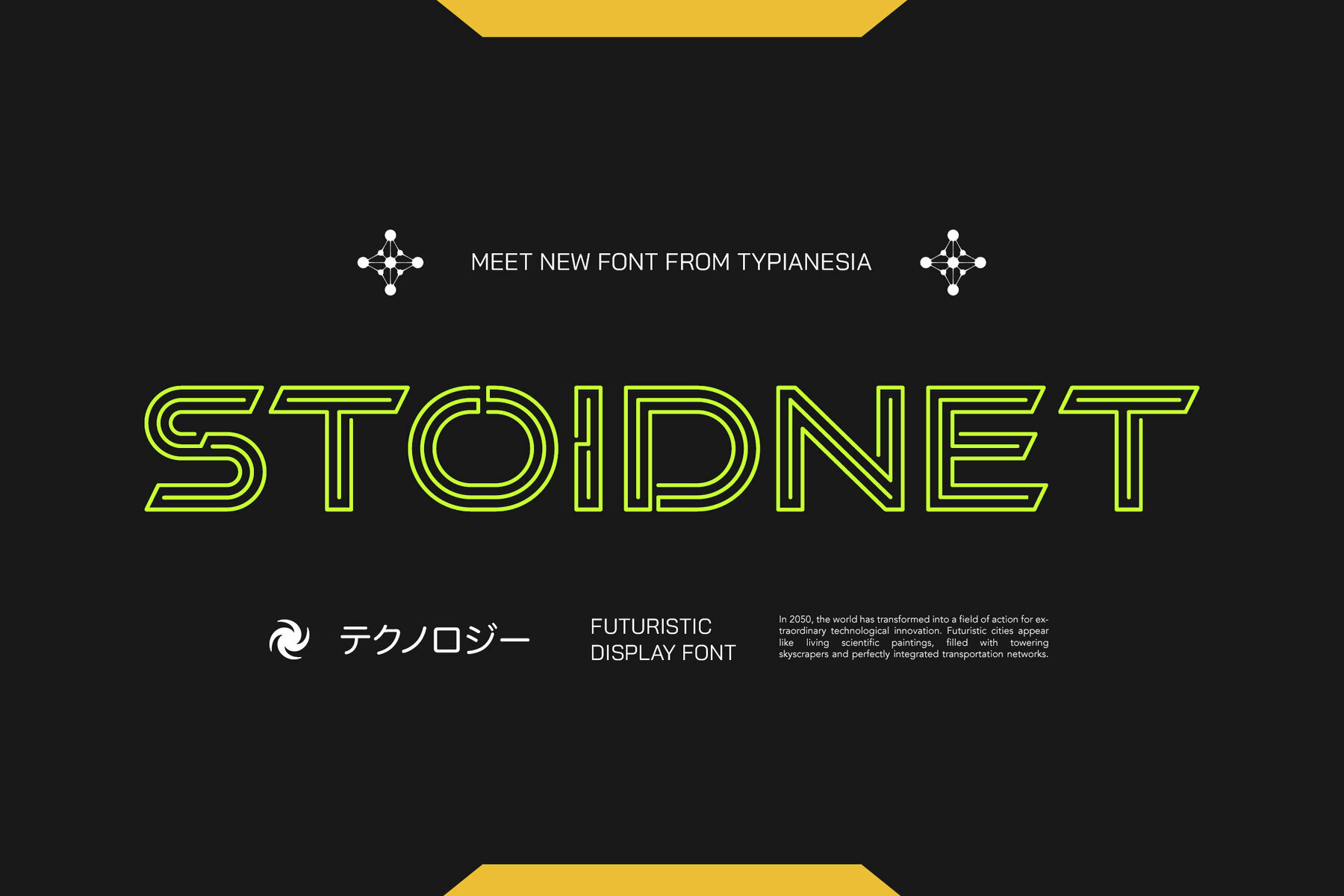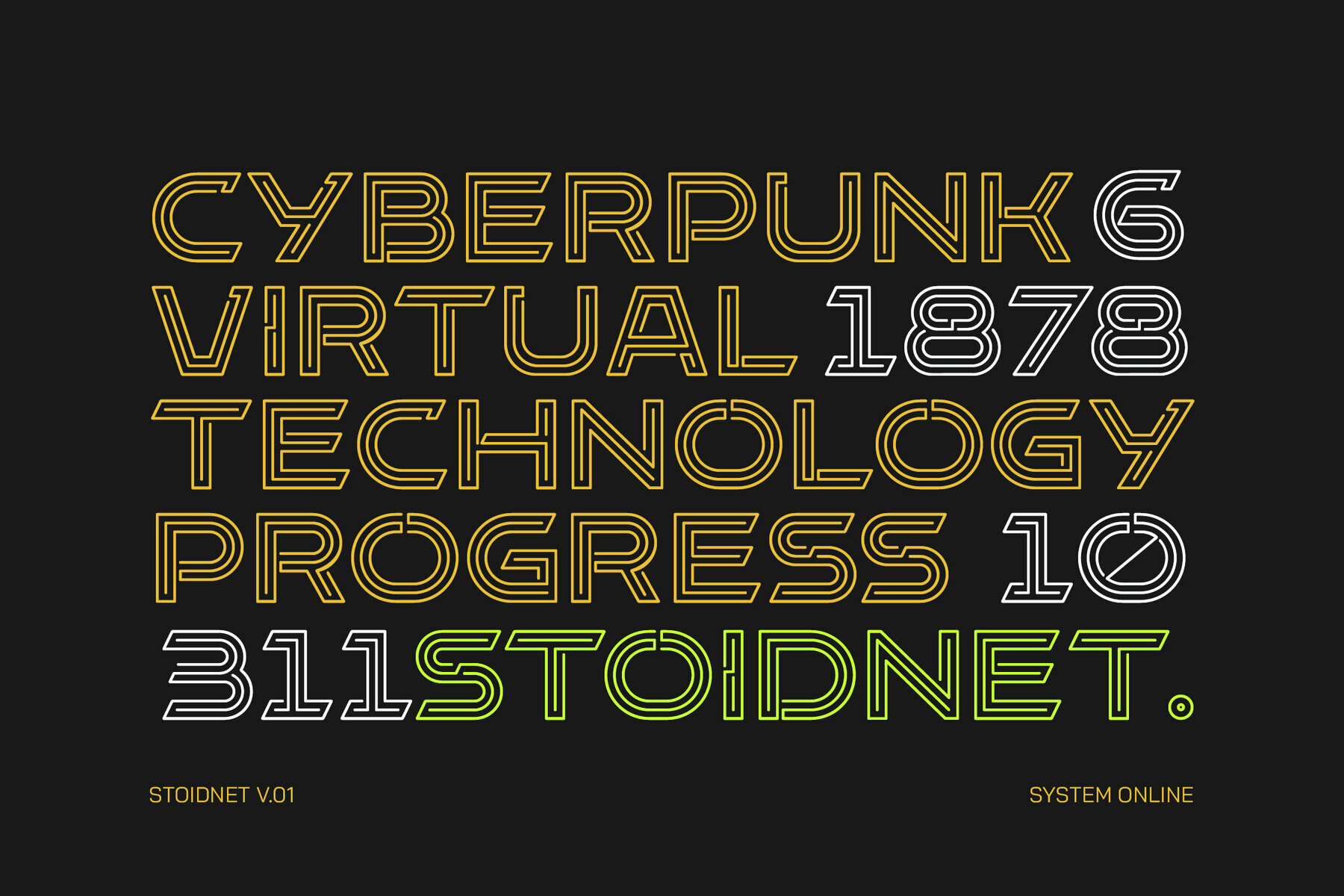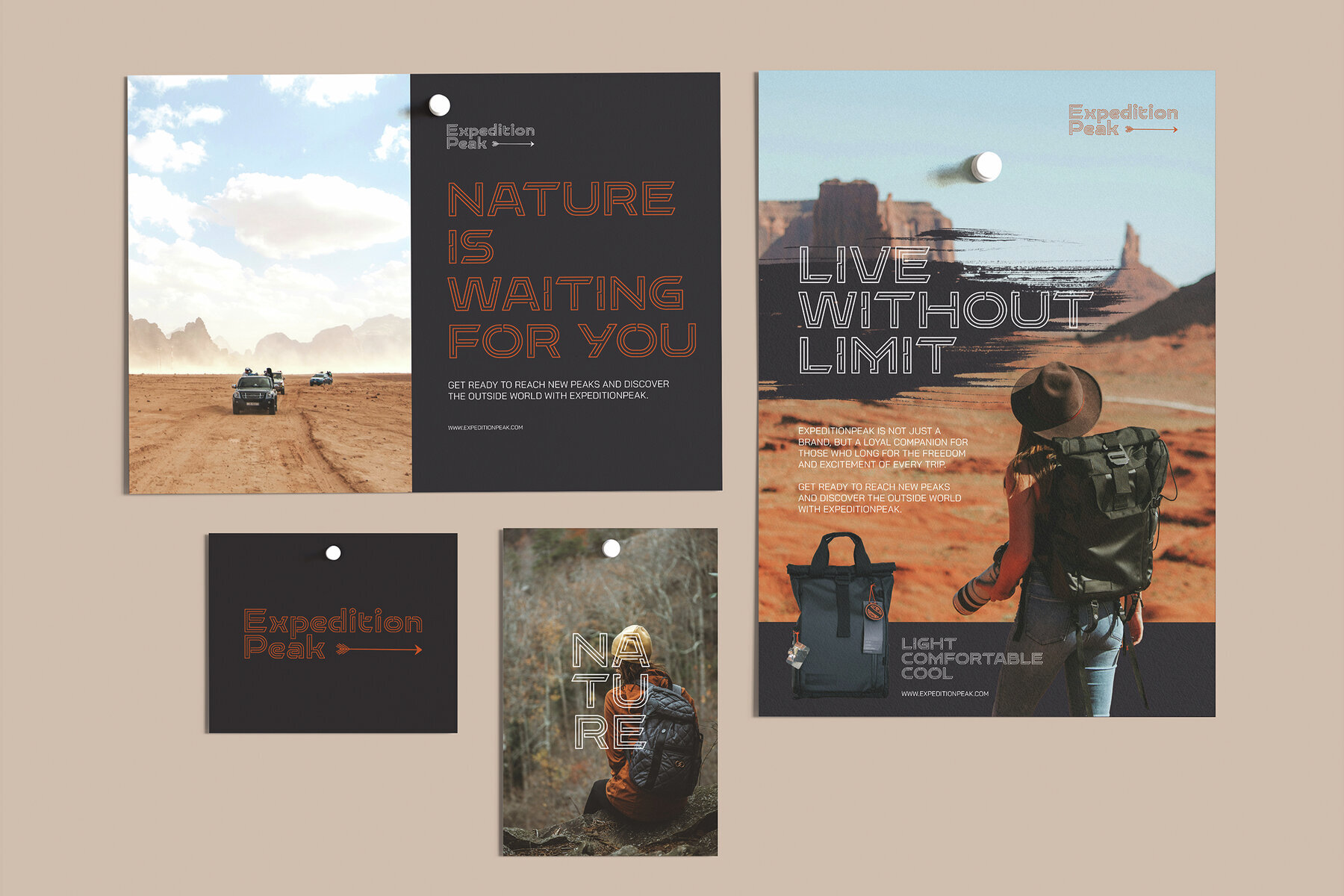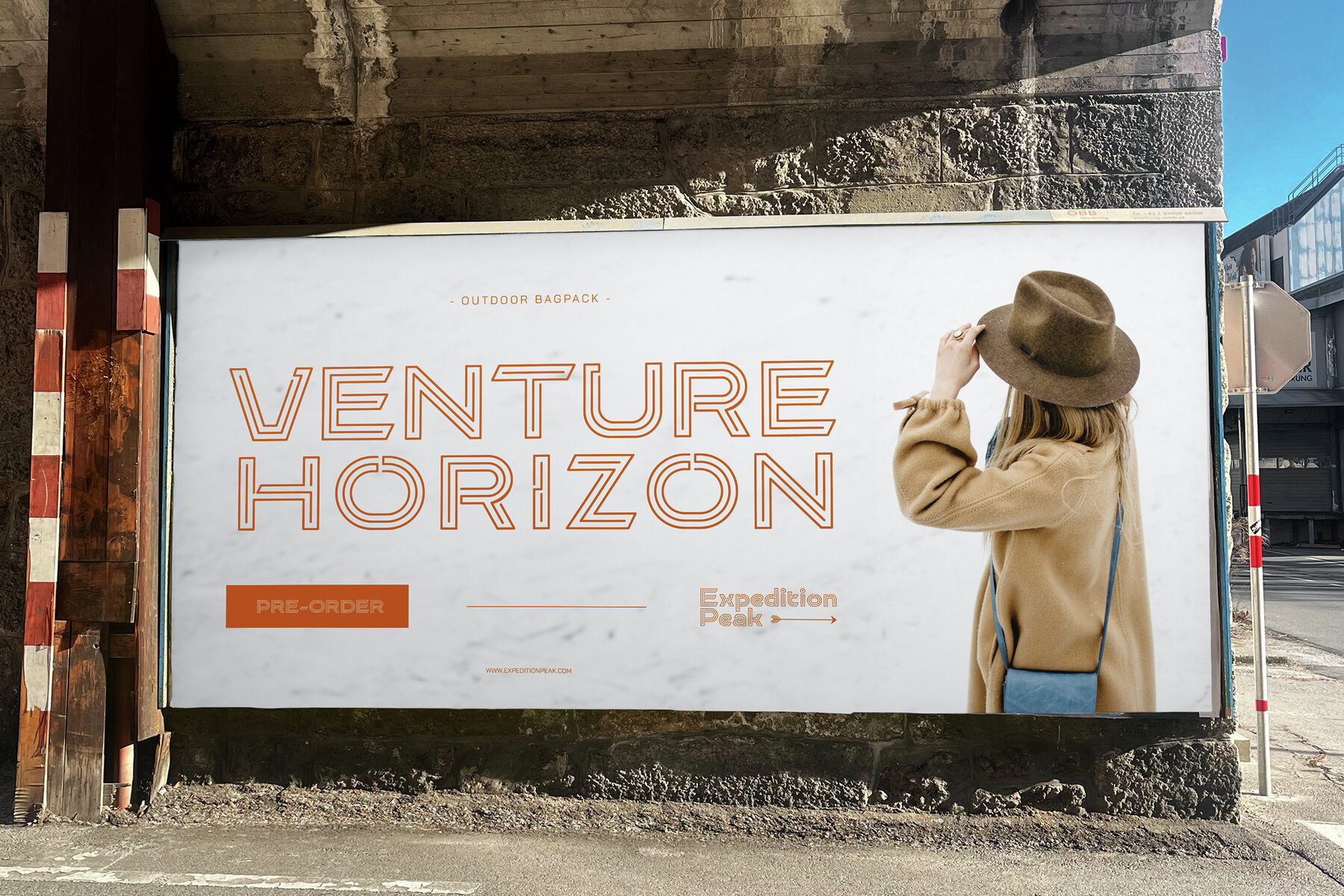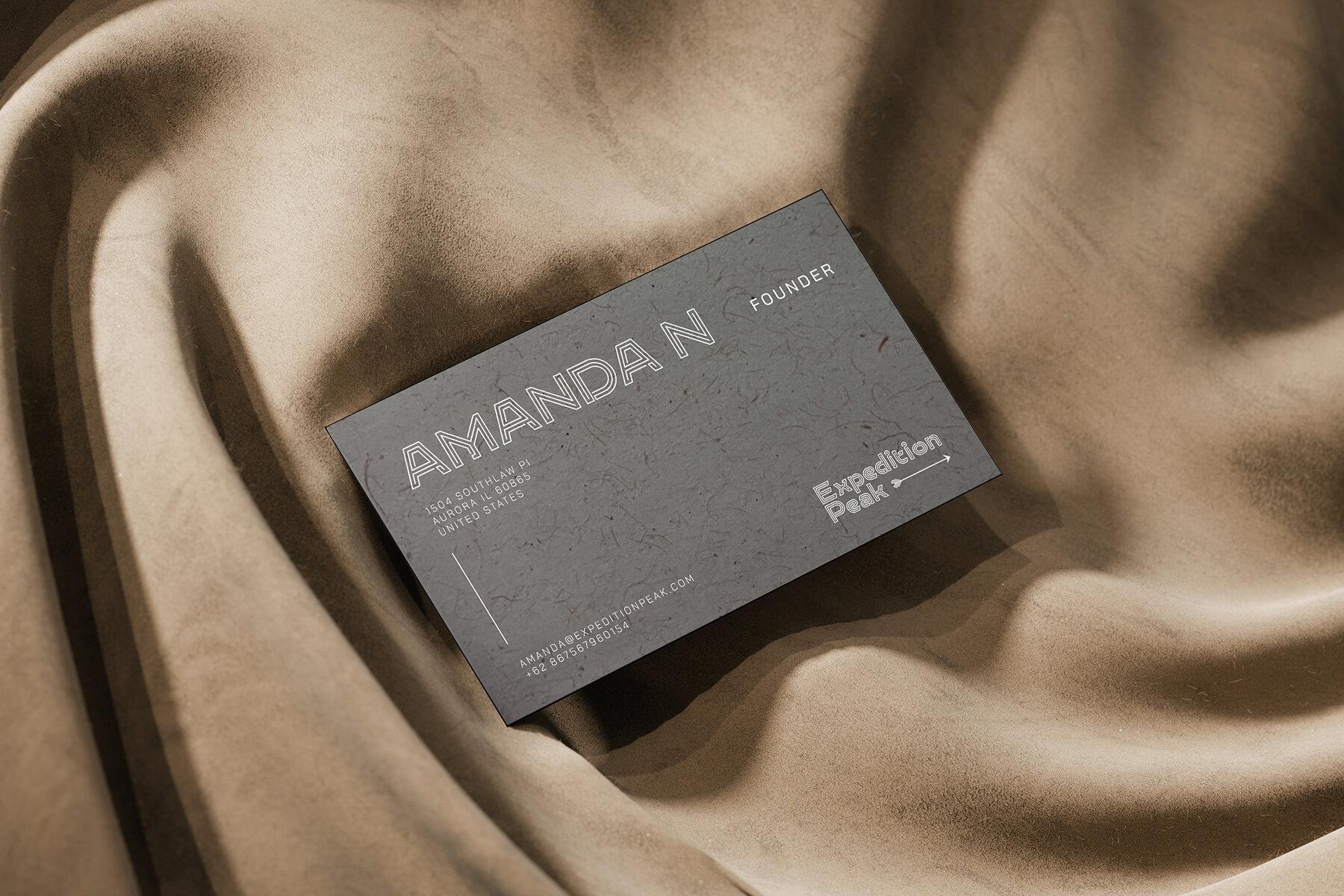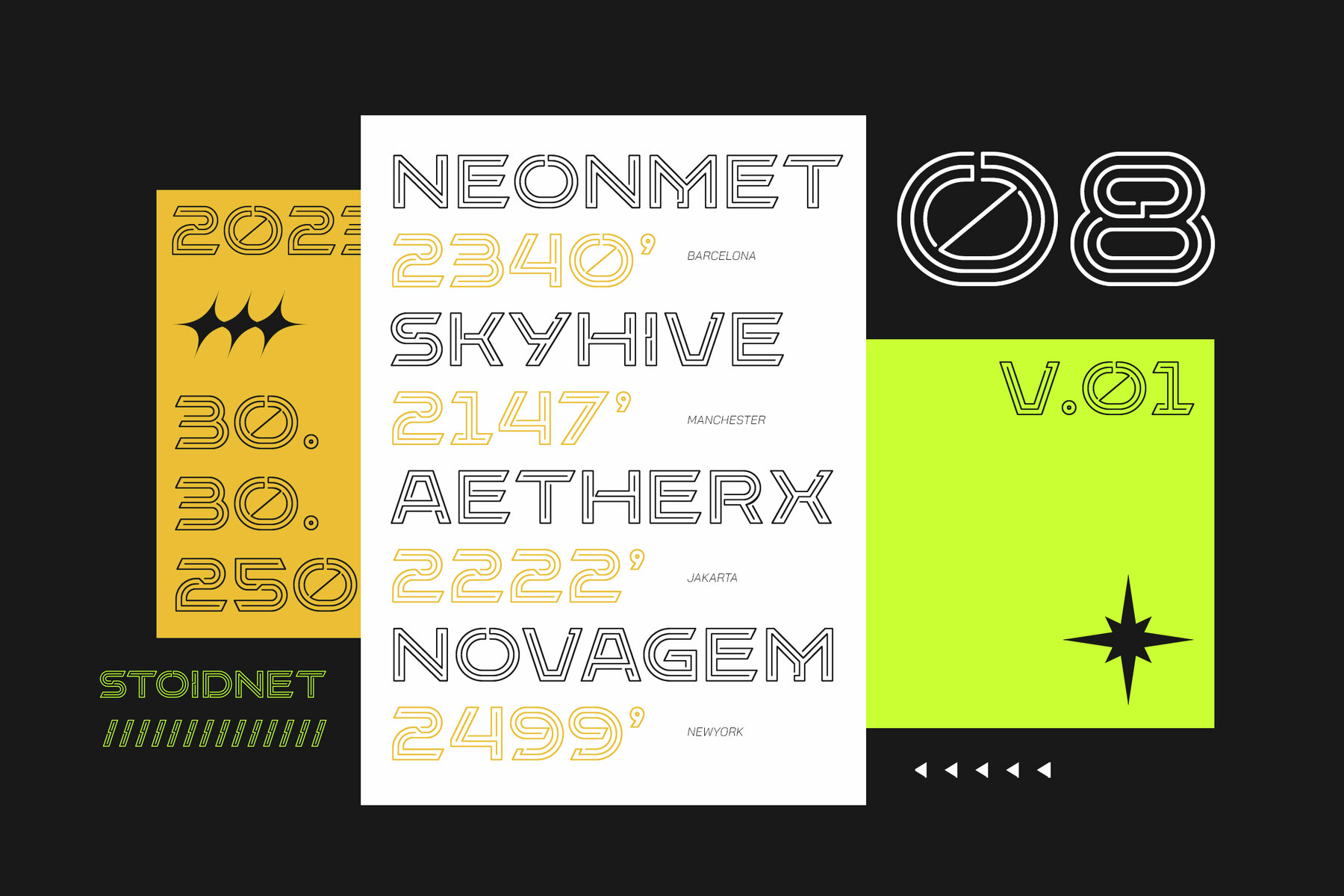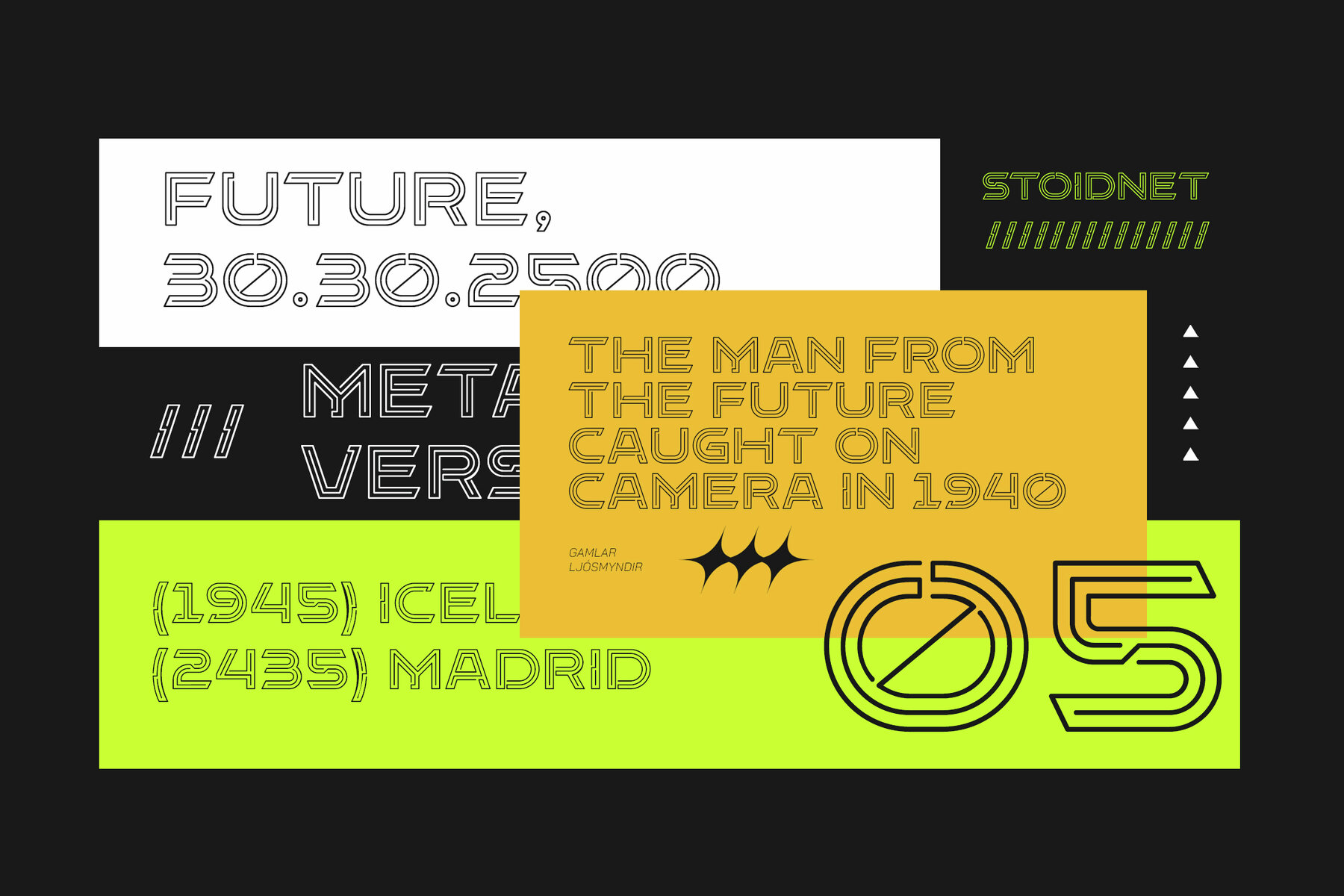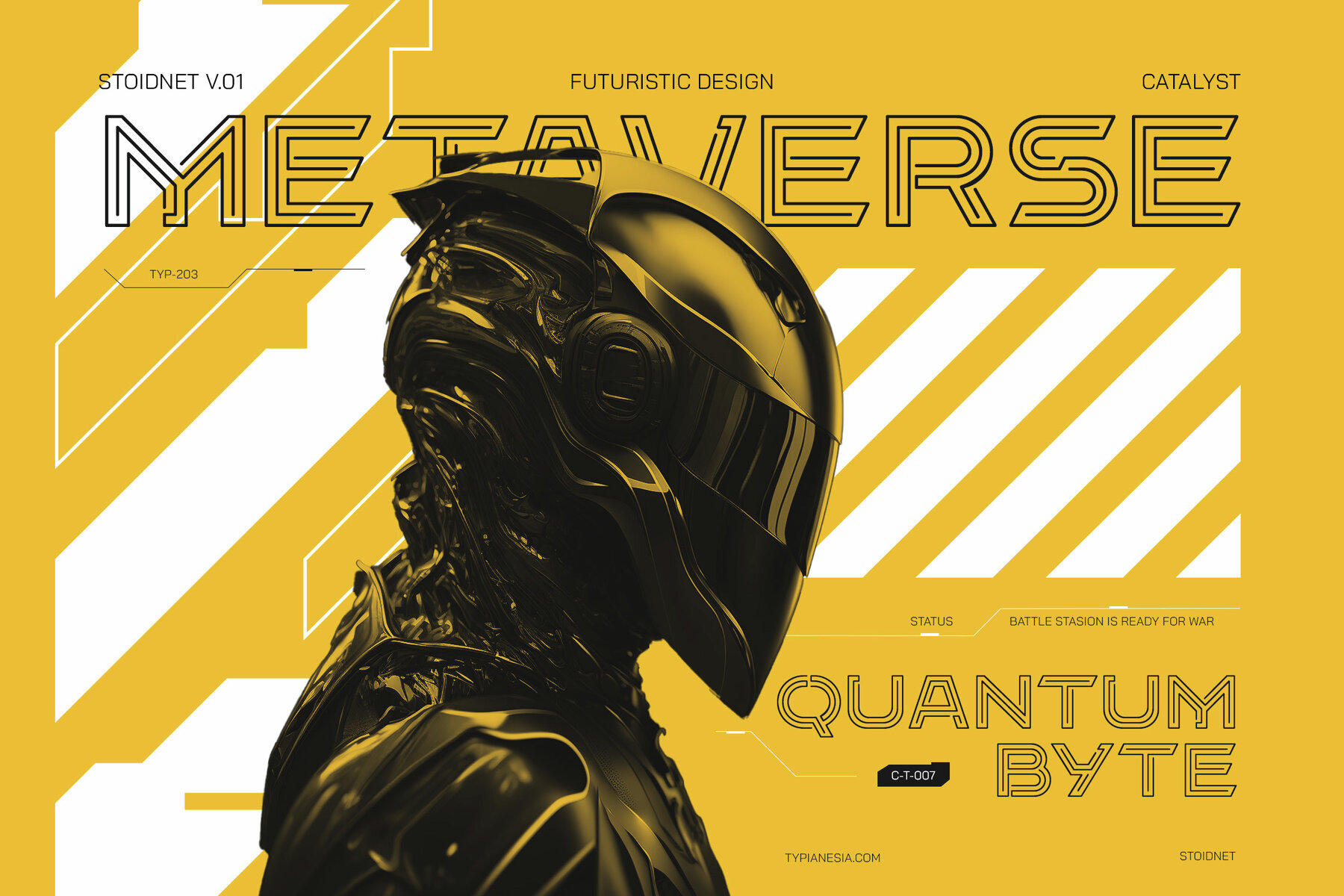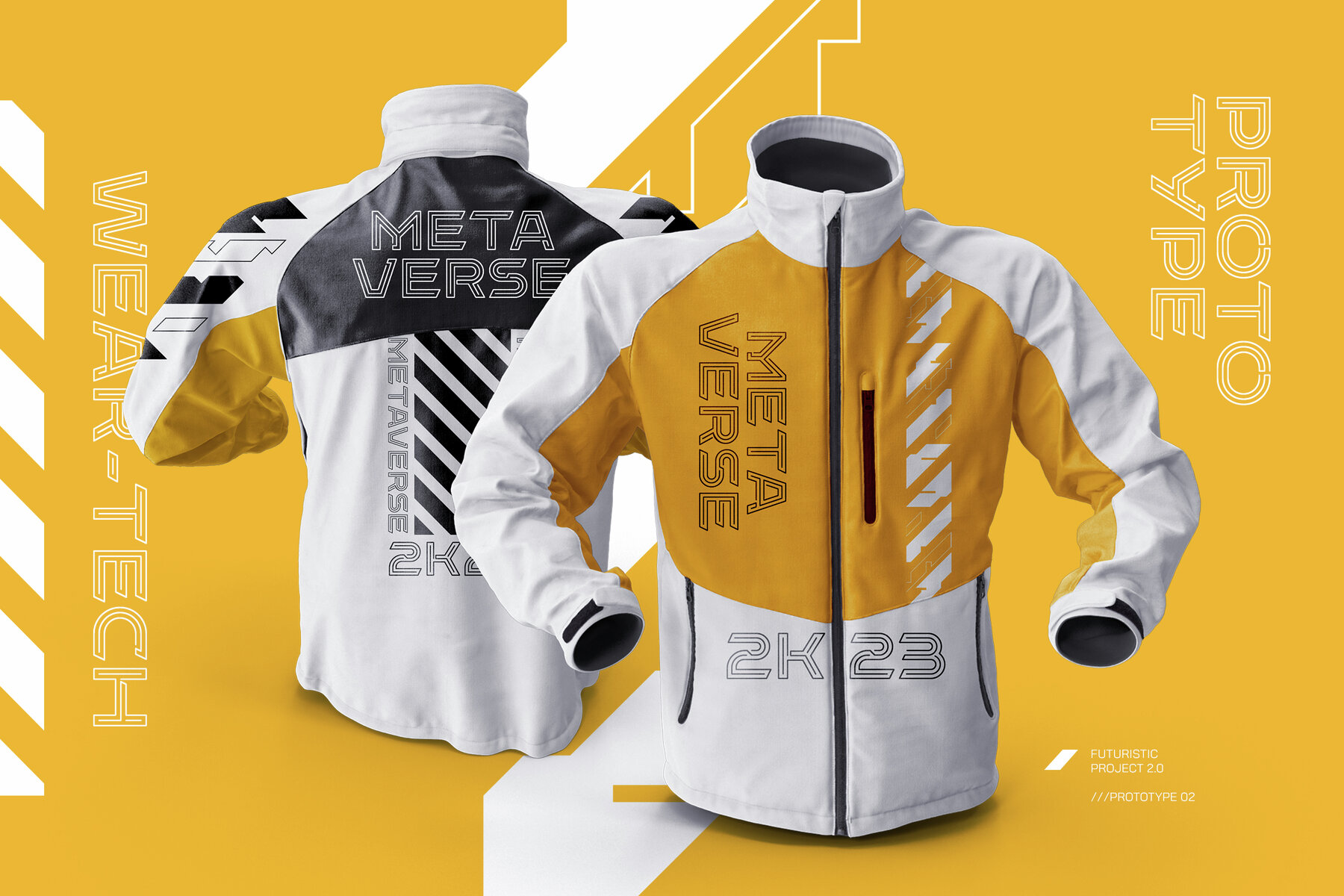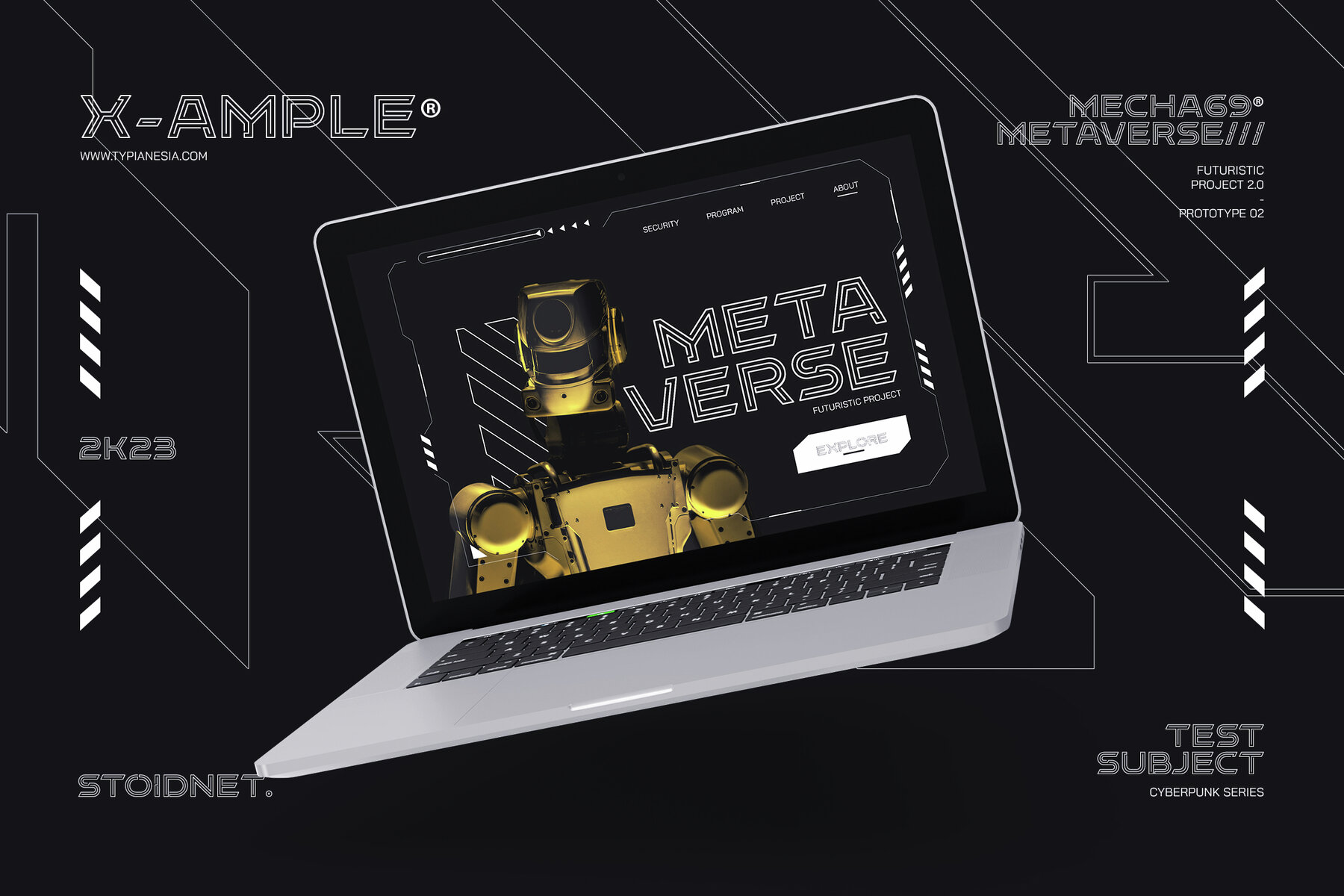
Stoidnet Font
Stoidnet Regular
Stoidnet is a cutting-edge futuristic display font, meticulously designed to embody modernity and innovation. Perfect for technology-related designs, sci-fi contexts, and progressive branding, Stoidnet brings a forward-thinking visual presence to your projects.
Crafted by experienced typographers, Stoidnet combines artistic flair with technical precision to ensure optimal performance across various design contexts. Its design is informed by the latest industry trends, making it the ideal choice for any project aimed at the digital age.
Bring your designs into the future with Stoidnet—a modern fusion of style and innovation.